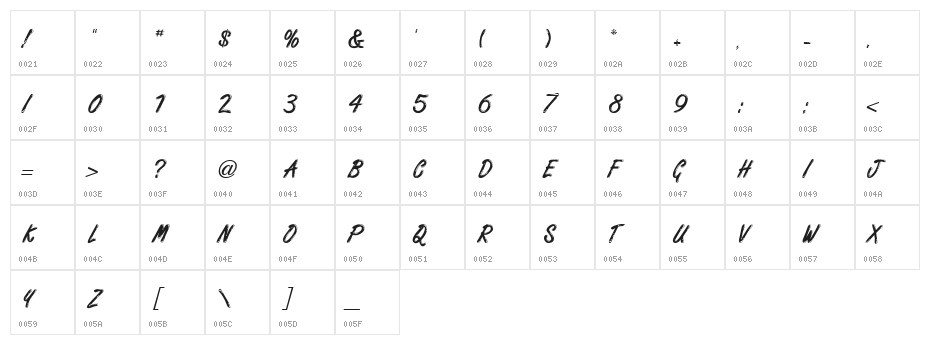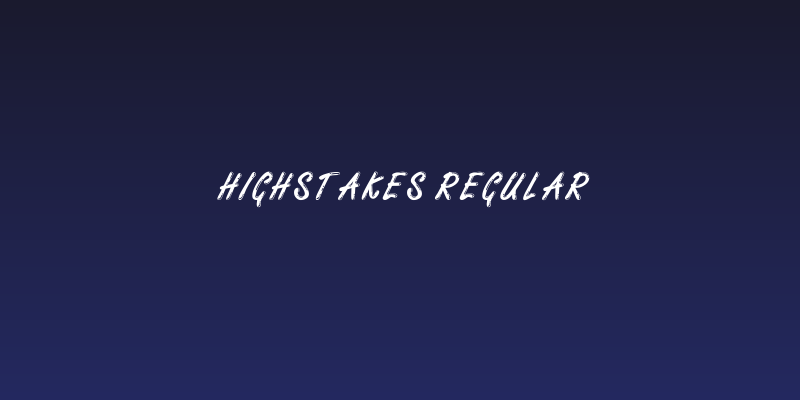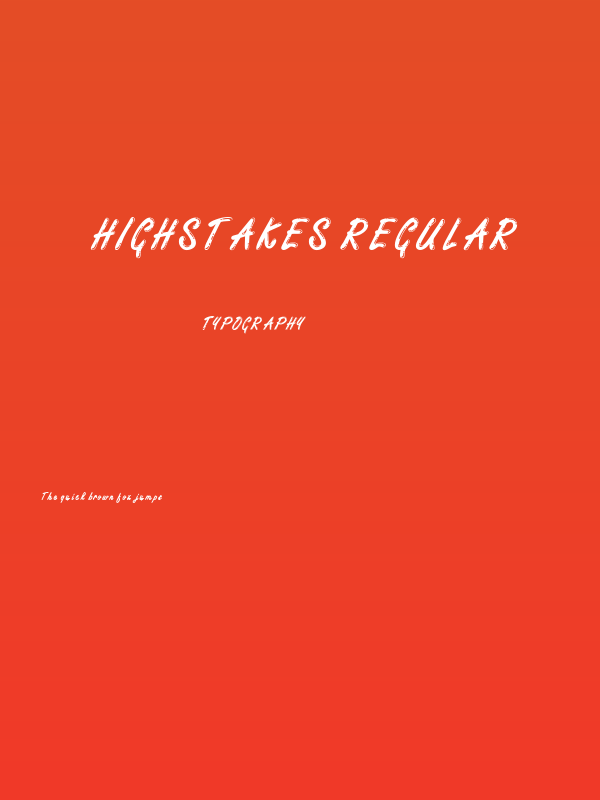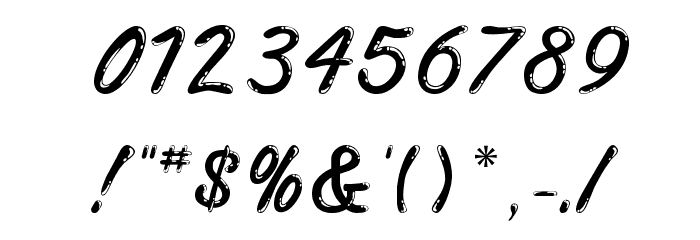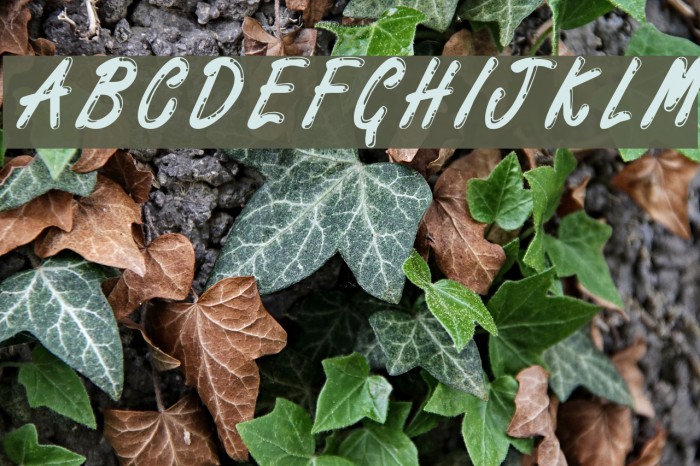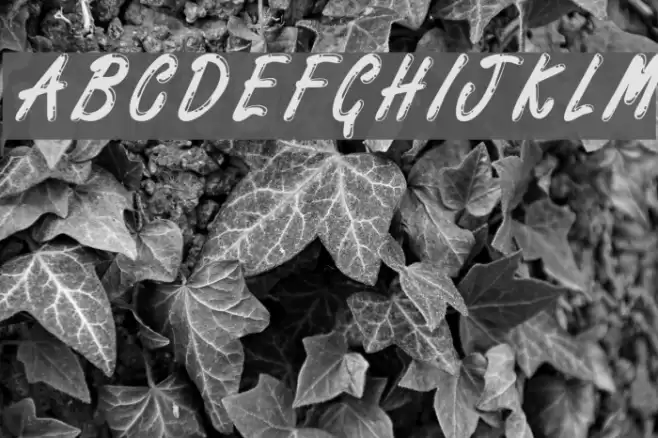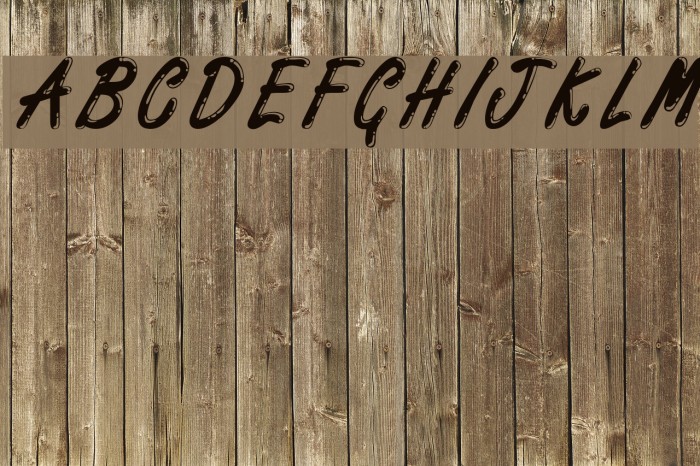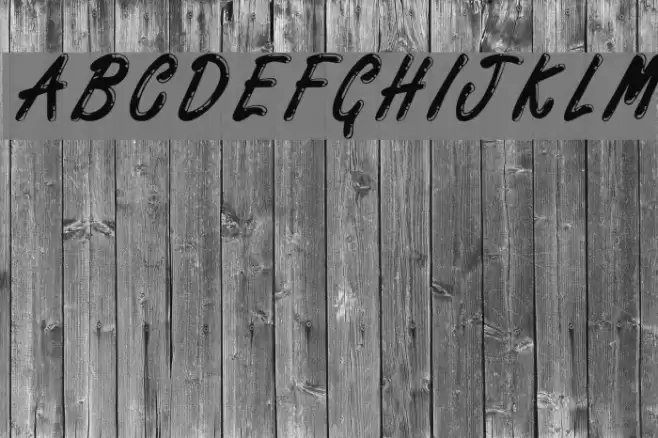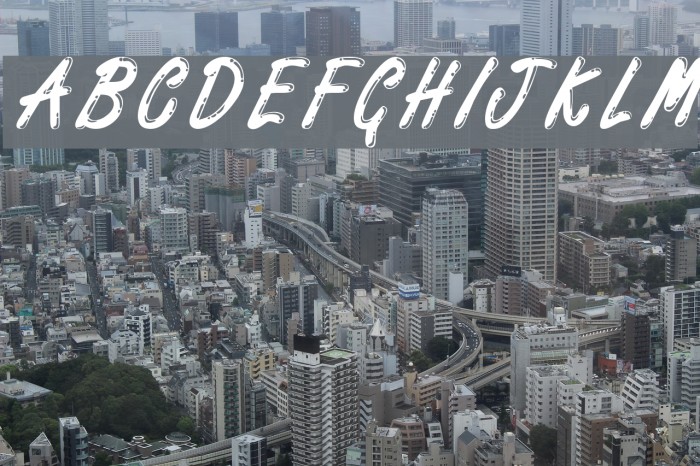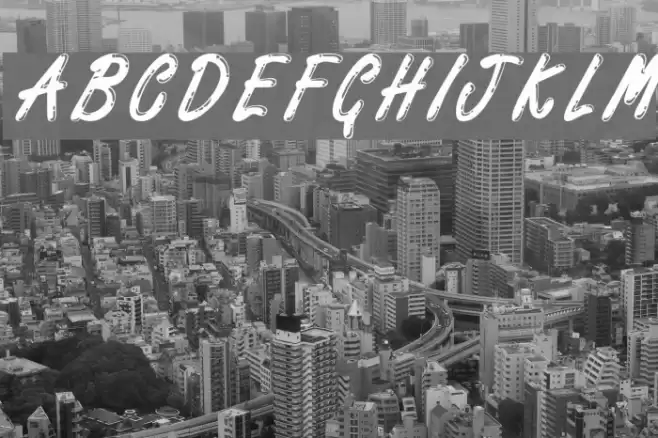
Highstakes Regular Font
Highstakes Regular Description
This font features a bold and dynamic script style with a handwritten appearance. The characters are slightly slanted, giving a sense of motion and energy. The strokes are thick and consistent, with a slight variation that adds a touch of elegance. The uppercase letters are prominent and commanding, while the lowercase letters maintain a cohesive flow. Numbers and special characters are designed to match the overall aesthetic, ensuring versatility across different uses. The font's playful yet sophisticated style makes it suitable for a variety of creative projects.
| Use Case | Logos, Headlines, Invitations |
| Proposed Projects | Ideal for branding, logos, invitations, and creative posters. |